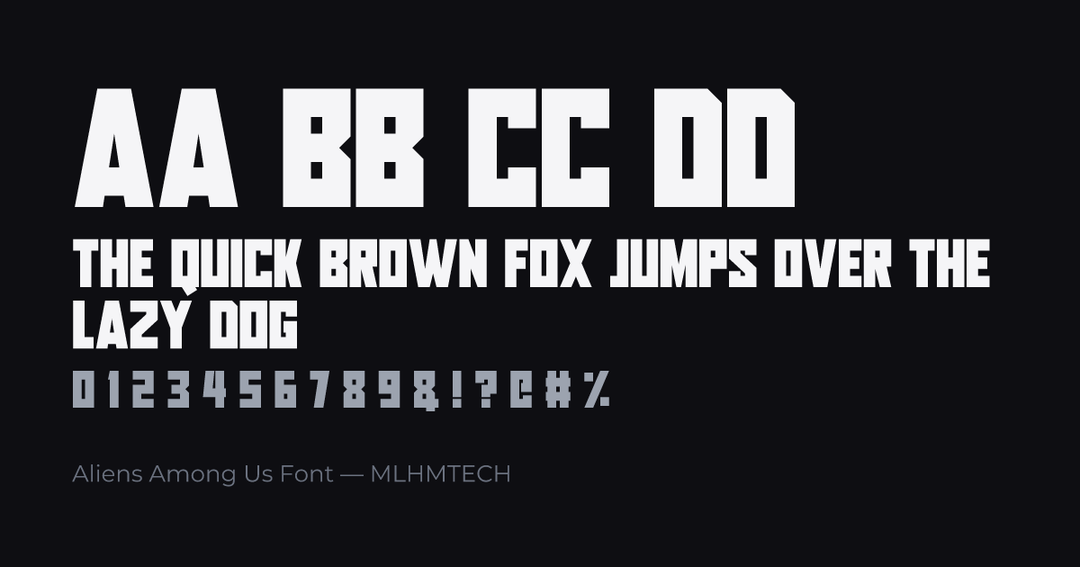
Aliens Among Us Font
Aliens Among Us is a distinctive display font with an otherworldly feel, ideal for sci-fi themes, posters, and branding. Its bold, irregular letterforms add a touch of the unknown to your designs.
Aliens Among Us is a handpicked font that brings a sense of mystery and extraterrestrial intrigue to your projects. The OTF file ensures high-quality typography with smooth curves and sharp edges, making it perfect for headlines, logos, and promotional materials.
This font features a unique blend of geometric and organic shapes, giving it an alien-like appearance that stands out. Whether you're designing a movie poster, a gaming interface, or a quirky brand identity, Aliens Among Us adds character and depth.